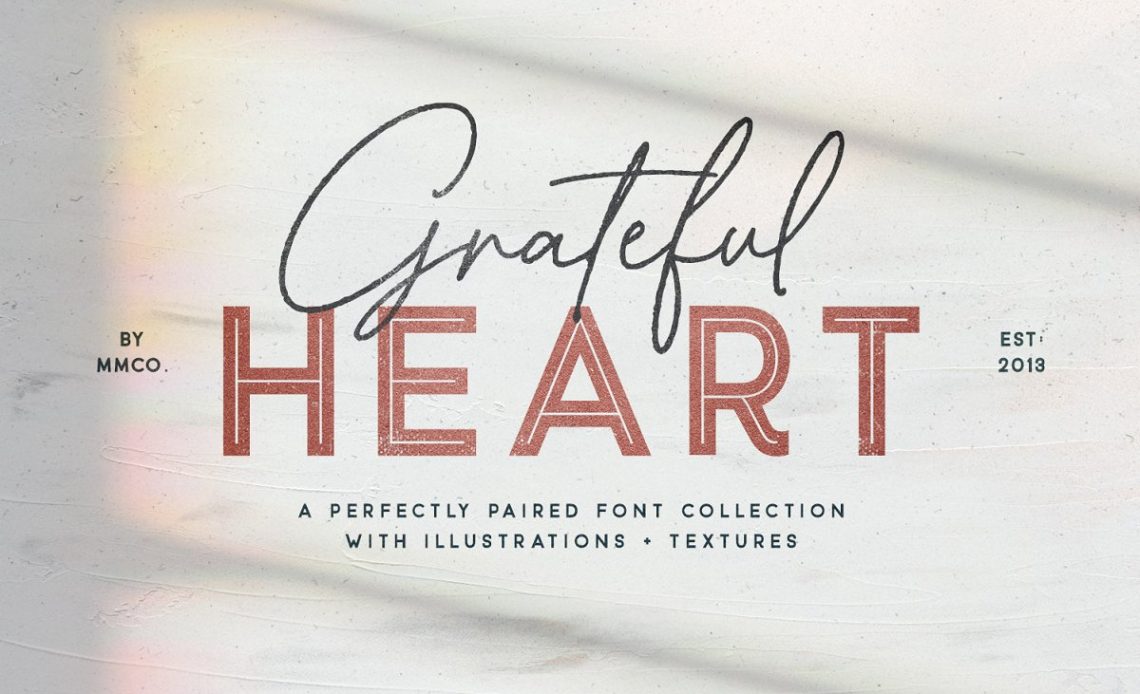
Introducing the Grateful Heart Font Collection, a 'modern rustic' assortment that will ignite your creativity and add a touch of elegance to any project. Created by the talented Callie Rian Hegstrom, this collection offers a variety of fonts and bonus goodies to enhance your designs.
At the heart of this collection is the Grateful Heart Script, a darling handwritten typeface that mimics natural handwriting with 130 automatic ligatures. Its ballpoint style brings a personal touch to your work, making it perfect for invitations, quotes, and more. Paired with the Grateful Heart Sans, a classic sans serif font, you can create stunning typography and branding that stands out from the crowd.
But the collection doesn't stop there. We've also included the Grateful Heart Slanted, an italic version of the script for added variety, and the Grateful Heart Sans Inline, a clean, inline font that beautifully complements any script. These fonts work seamlessly together, giving you endless possibilities for your designs.
To enhance your creations even further, we've included a set of 20 handmade, color-trending background papers with the Grateful Heart Textures. These textures add depth and dimension to your work, creating a subtle eroded look that adds character. And if you're feeling adventurous, the Grateful Heart Grunge Textures allow you to grunge up your letters with Photoshop Masking, adding a unique touch to your designs.
But that's not all! The Grateful Heart Elements offer 50 hand-drawn modern vector elements, including unique florals and line elements. These elements can be used in logos, branding, and patterns, allowing you to create cohesive and eye-catching designs.